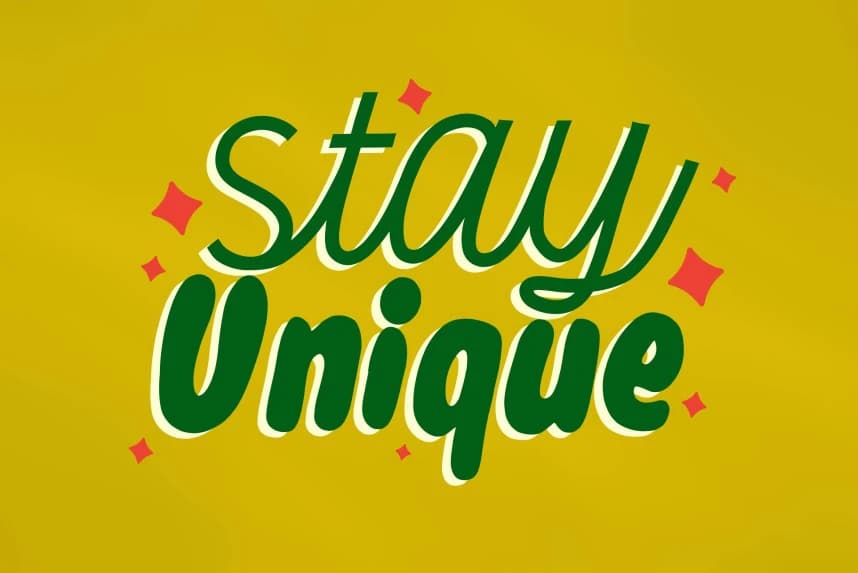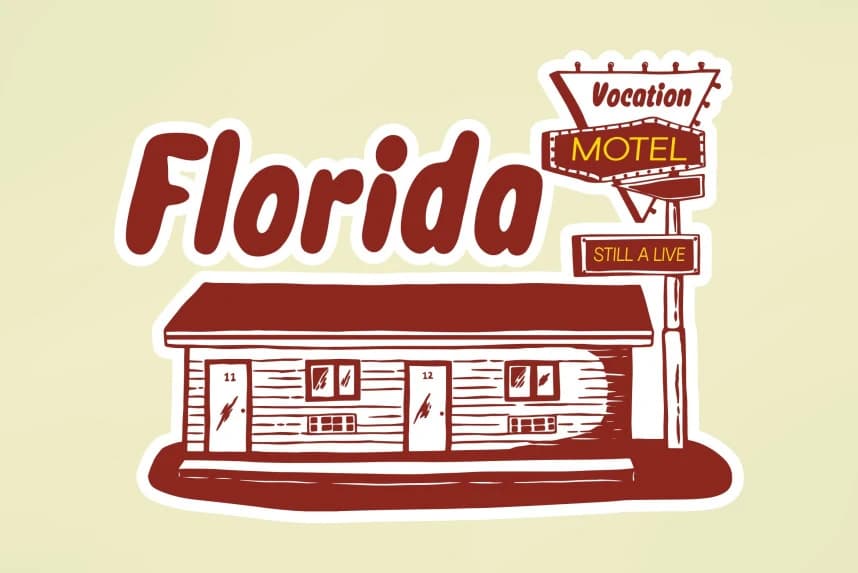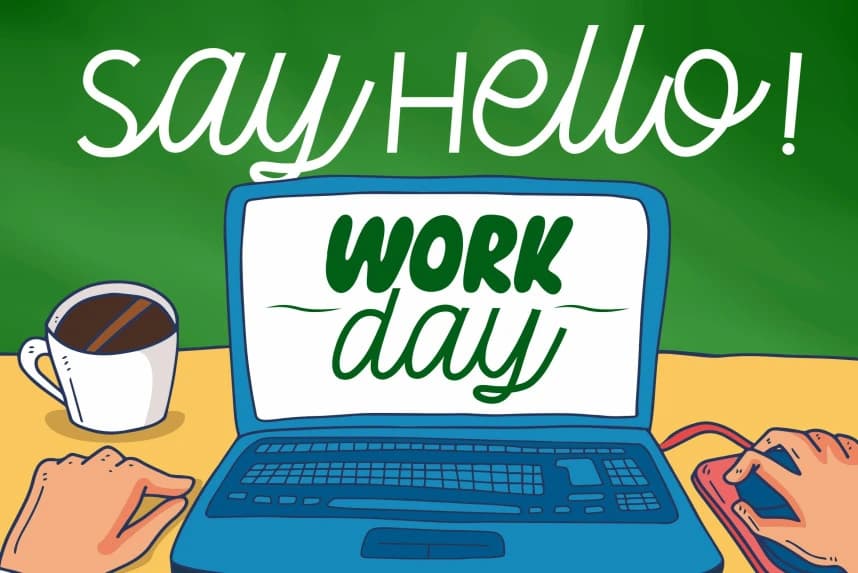
Pop Funky Font
Munchy Pop Font is a playful and energetic font duo that brings together bold personality and smooth elegance in one vibrant package. Designed to stand out, this duo combines a chunky, eye-catching display style with a flowing script that adds contrast and charm.
Pop Funky